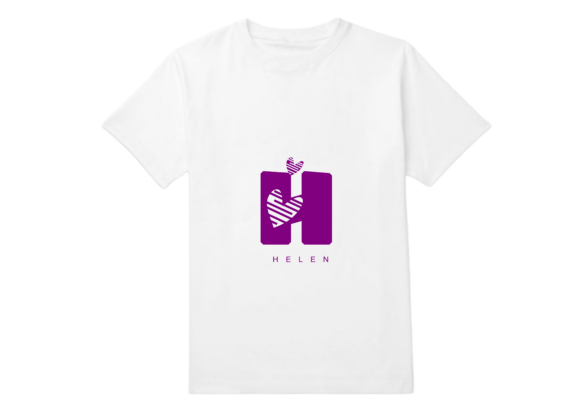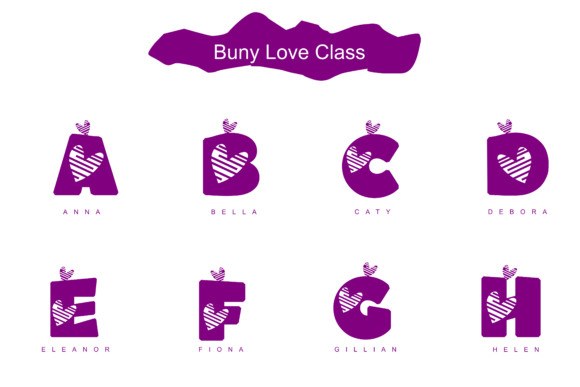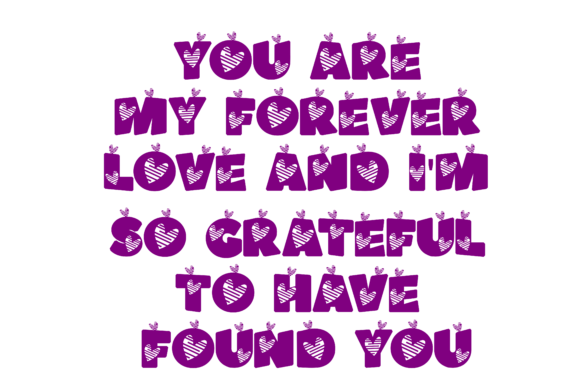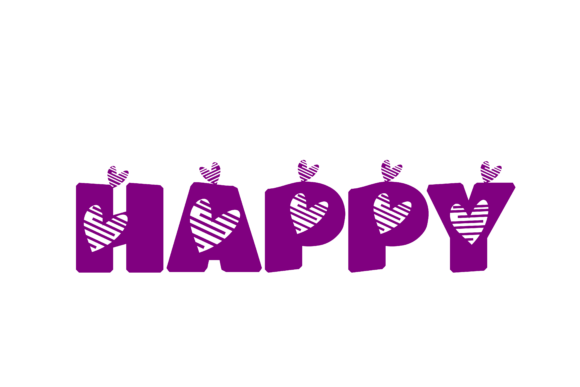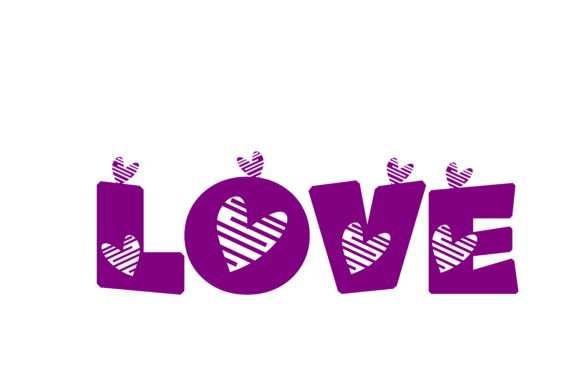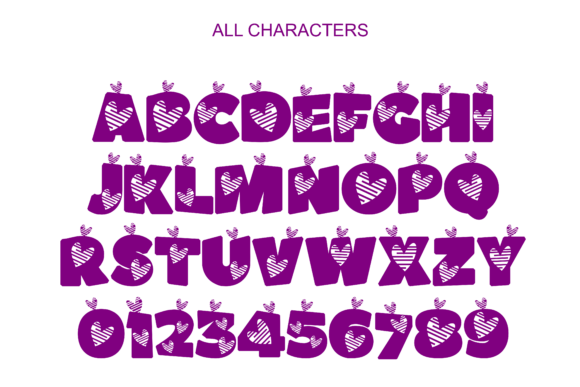
Unleashing Your Inner Artist with the Bunny Love Font
You’ve spent hours brainstorming ideas, experimenting with colors, and pouring your heart into a design project. But, there’s something missing – a spark that sets your creation apart from the rest. That’s where the Bunny Love Font comes in – an innovative typeface designed to breathe life into your artistic pursuits.
This dynamic font is crafted to elevate the impact of your creative projects, radiating uniqueness and hypnotic rhythm. With the Bunny Love Font, you can infuse your designs with a touch of whimsy and charm, making them stand out in a crowded space. Whether you’re a seasoned designer or just starting out, this font is a valuable addition to your toolkit, empowering you to push the boundaries of your creativity.
Bunny Love Font Key Features
- Font Family: Bunny Love Font is a unique, hand-drawn font designed to evoke a sense of playfulness and cuteness.
- Unique Characteristics: Bunny Love Font features a distinctive, rounded design with intricate details, making it perfect for children’s books, greeting cards, and other playful projects.
Bunny Love Font Review
I recently had the chance to work with the Bunny Love Font, and I must say it’s a unique and playful addition to any design project. Here’s my honest review:
- Uniqueness: The Bunny Love Font stands out from the crowd with its whimsical and adorable design.
- Emotional Connection: The font’s cute and endearing style makes it perfect for projects that need to evoke a sense of playfulness and joy.
- Customization Options: The font is available in a variety of styles and weights, giving designers the flexibility to tailor it to their specific needs.
- Limited Legibility: At smaller font sizes, the Bunny Love Font can become difficult to read, which may be a concern for projects that require clear and concise communication.
- Over-Usage: The font’s cuteness can become overwhelming if used too extensively, which may lead to a loss of visual interest and effectiveness.
Overall, the Bunny Love Font is a great addition to any designer’s toolkit, but it’s essential to use it judiciously and in contexts where its unique personality will shine. When used correctly, it can add a delightful touch to any design project.
The Bunny Love Font is ideal for:
- Children’s birthday invitations and party decorations.
- Spring and Easter-themed designs.
- Whimsical and playful branding.